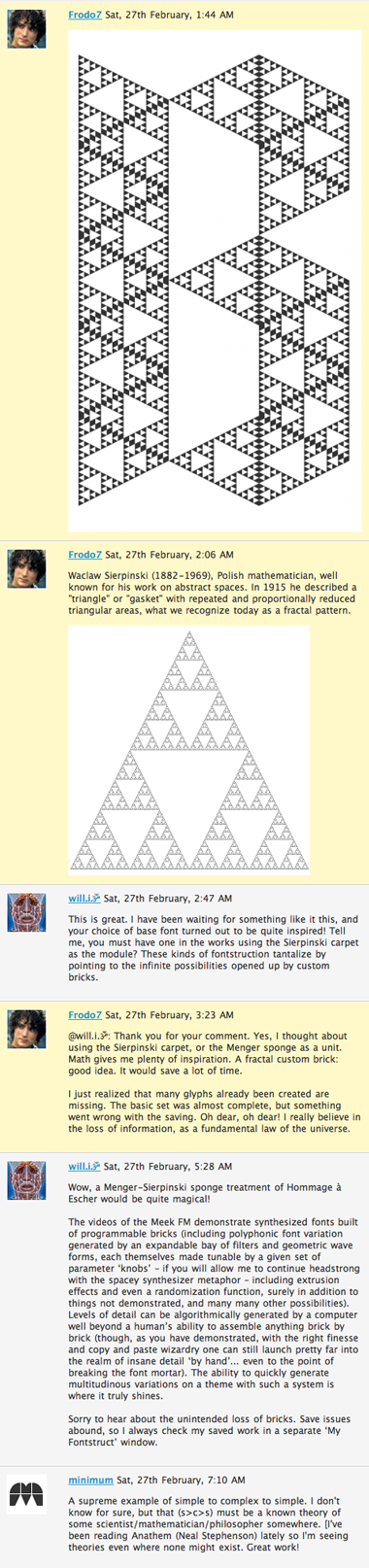
Absolutely magnificant - the clarity of mathematics producing the beauty of lace. 10/10 (the original had gone before I could vote ... wish I could give it even more)
I love the sharp metal cut yet aerial feel of this font. Fascinating!
Magnificent, Tibor. Would love to see these printed at a massive scale.
@afrojet: Thank you very much for the special mention. Having a large print out, would be great indeed. will.i.ૐ had an idea, if I understood it correctly, of generating the level of detail algorhitmically by the computer.
Indeed, you read me correctly, young Mr. Baggins :)
Not just any computer, though: the Meek FM. Or some other superset of FontStruct. Or otherwise, yes.
The interesting and timeless challenge I see peeking through the gaskets is how to maintain pristine LOD across an entire range of sizes, from the biggest to the smallest. This is nothing new, of course, but with a tangentially tasty fractal twist.
I've seen the videos on Meek FM on Vimeo, and more. The synthesizer captured my imagination too. Endless possibilities, and the hardware is not even necessary. But I wondered if we've got this magic wand for generating new fonts, how would it affect the creative process. Would it be detrimental to creativity, since one can generate almost perfect fonts by pushing some buttons or turning some knobs. My answer is yes, and no. To some extent, and for some people it would be the equivalent of ready-made food in culinary terms compared to the haute cuisine of FontLab and other serious tools. But for a small group of clever artists it would be a new instrument to play with, a new challenge to explore the possibilities, to take it to the limits, and hopefully create something new and extraordinary, not possible with traditional tools.
To the second point. Yes, I could have challenged the Font Mortar again, but I chose not to. The original version was one degree higher in detail, and consequently much larger. After a few glyphs I've abandoned that, and started a smaller, but fully functional version.
What you suggest, to generate detail on-the-fly, whenever necessary for a larger print out or hi-res display has far reaching implications. One that springs to my mind is the definition of font as a software, a set of instructions and a collection of data of vector shapes and other things. (This notion has its roots in US. copyright law, which does not cover fonts as creative artworks, and companies sought other ways of protection for their precious font collections.) In this case of fractal fonts, however, this definition could have a real meaning. I don't know the technical details, but some fonts, especially handwriting fonts, have a sophisticated code in the background, e.g.: regulating the selection of ligatures as you type. So I don't see next to impossible having a code which generates new iterations as you increase the point size.
@minimum: Simple to complex: one example is the theory of evolution, which explains in great detail the development from simple prokaryote organisms (e.g. bacteria) to multicellular eukaryotes, such as the emperor penguin, the polar bear or the lebanon cedar. Chaos theory and fractals are also good examples. When you have an initial state (data) and set a few simple rules (algebraic functions), your system quickly descends into complex (chaotic) behavior. When visualized with simple black and white pixels, it produces a multitude of diverse and complex patterns (see more on this topic in the following books: A New Kind of Science; Cellular Automata and Complexity, both by Stephen Wolfram; or find some pictures of cellular automata patterns on the web).
Complex to simple: Again, fractal patterns and chaos, where you can reduce the complex pattern or behavior to a few simple equations. My other example is from modern physics: the theory of everything (TOE), and in particular the string theory. It is a major attempt to reconcile quantum mechanics with general relativity. Without going into the details, and I don't pretend to understand any of the mindbogglingly complex math behind it, the string theory tries to describe all the fundamental forces (gravity, electromagnetic force, weak and strong forces), and matter (elementary particles, leptons) in a coherent mathematical system. That is the ultimate challenge of physics, the holy grail of science, to reduce the vast complexity of the universe to a few pages of mathematical formulas and equations.